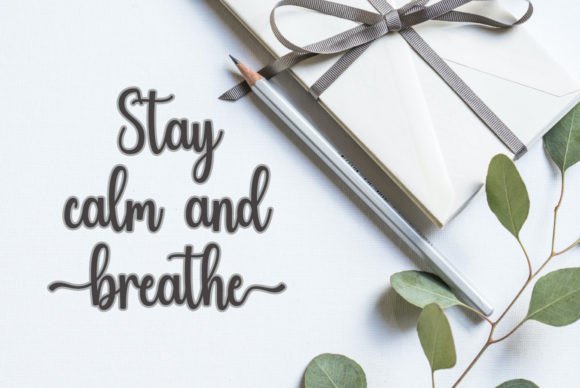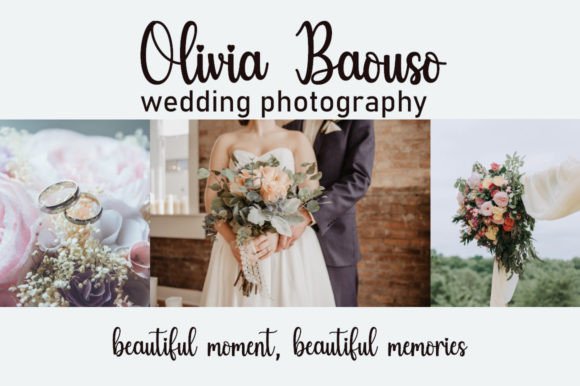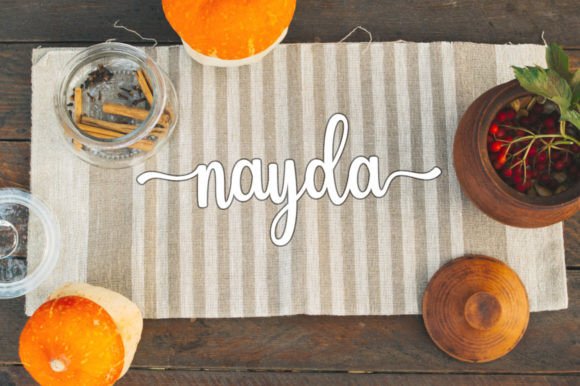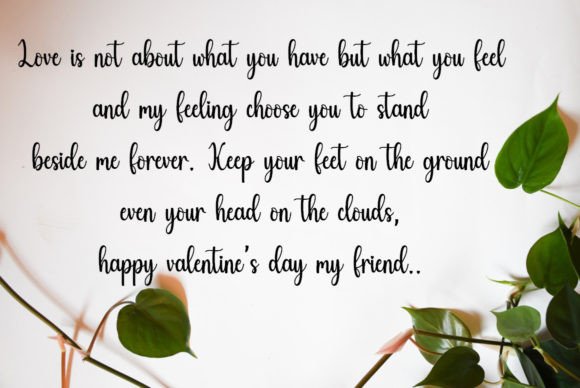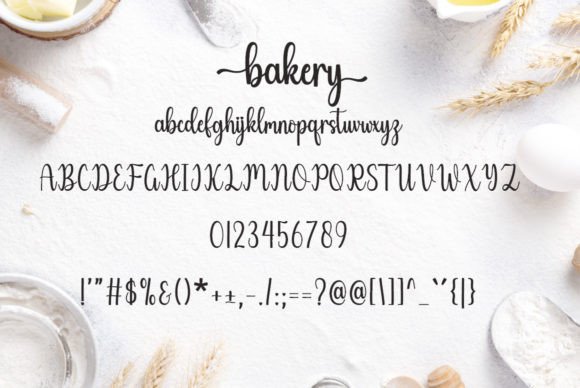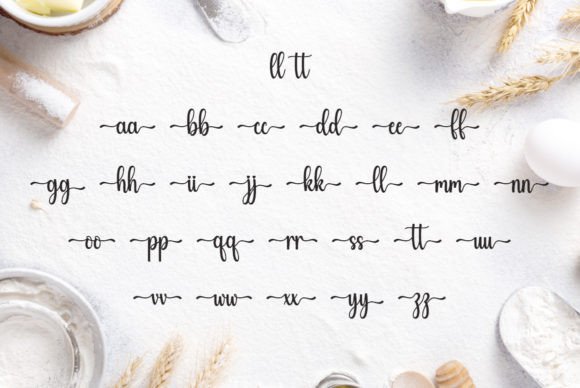
Bakery Font: Elevate Your Designs with Elegance and Sophistication
Are you a designer or crafter looking for a font that exudes elegance and sophistication? Look no further than the Bakery Font, a stylish and elegant handwritten font that’s perfect for a variety of design projects. In this article, we’ll explore the features and benefits of the Bakery Font, and show you how it can elevate your designs to the next level.
What is Bakery Font?
Bakery Font is a beautiful, handwritten font that’s designed to add a touch of elegance and sophistication to your designs. With its flowing lines and delicate curves, this font is perfect for creating stunning wedding invitations, thank you cards, quotes, greeting cards, logos, business cards, and more.
Key Features of Bakery Font
- Handwritten Elegance: Bakery Font is a true handwritten font, with a natural and fluid look that’s perfect for creating designs that feel personal and unique.
- PUA Encoded: This font is PUA (Private Use Area) encoded, which means you can access all of the glyphs and swashes with ease. This makes it simple to customize your designs and add your own personal touch.
- Versatile: Bakery Font is incredibly versatile, and can be used for a wide range of design projects, from wedding invitations and greeting cards to logos and business cards.
Bakery Font is a dream come true for designers and crafters who want to add a touch of elegance and sophistication to their designs. Whether you’re creating custom wedding invitations, designing logos for clients, or crafting handmade cards and gifts, this font is sure to impress.
Benefits of Using Bakery Font
- Adds a Personal Touch: With its handwritten elegance, Bakery Font adds a personal touch to your designs that’s hard to replicate with other fonts.
- Easy to Use: This font is incredibly easy to use, even for designers who are new to working with handwritten fonts.
- Highly Customizable: With its PUA encoding, Bakery Font is highly customizable, allowing you to add your own unique touches and glyphs to your designs.
How to Use Bakery Font in Your Designs
Using Bakery Font in your designs is simple. Here are a few tips to get you started:
- Pair it with Other Fonts: Try pairing Bakery Font with other fonts to create a unique and eye-catching design.
- Use it for Headlines and Titles: Bakery Font is perfect for headlines and titles, where its elegant curves and lines can really shine.
- What is PUA encoding?: PUA (Private Use Area) encoding is a way of encoding fonts that allows for the creation of custom glyphs and swashes.
- Is Bakery Font easy to use?: Yes, Bakery Font is incredibly easy to use, even for designers who are new to working with handwritten fonts.